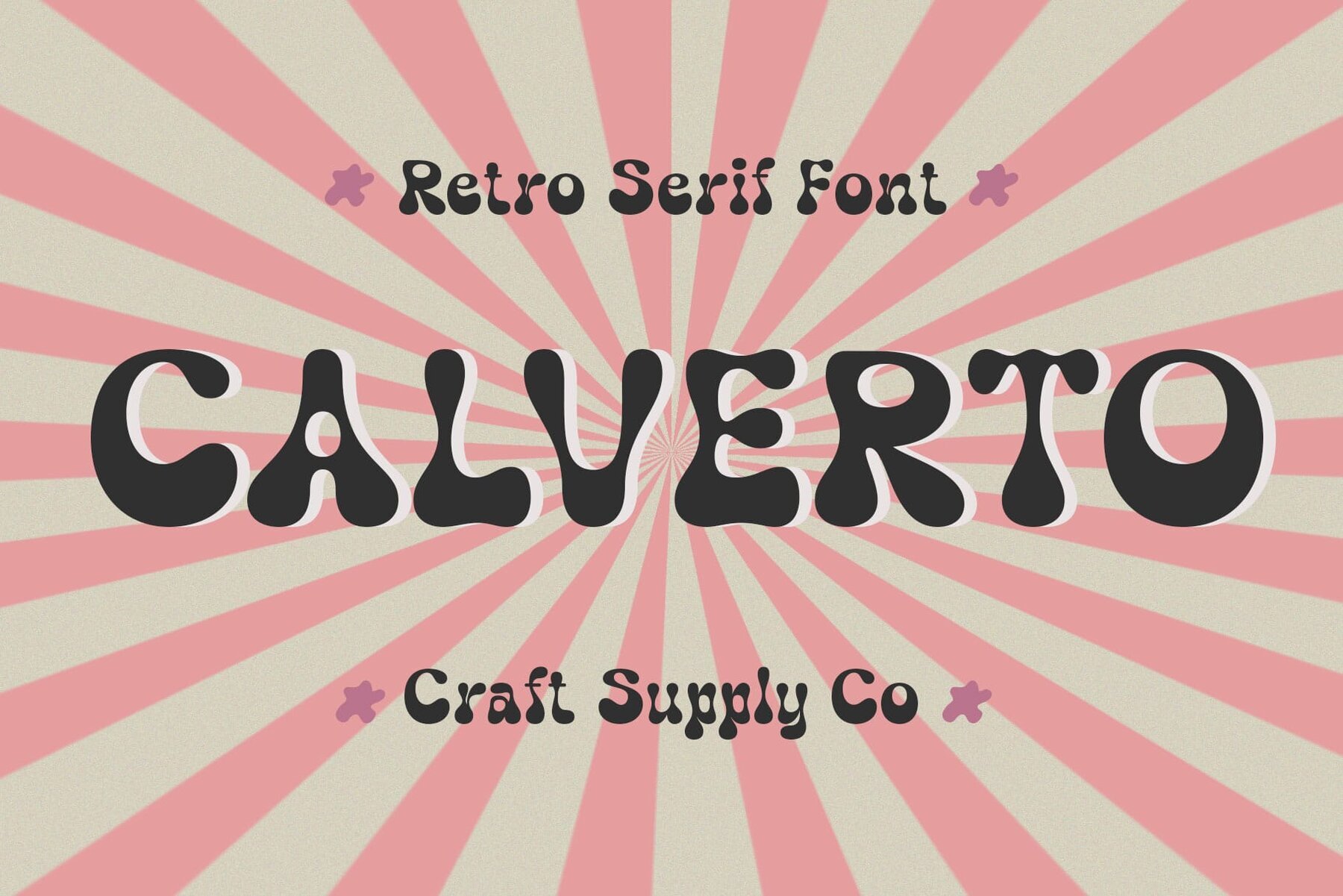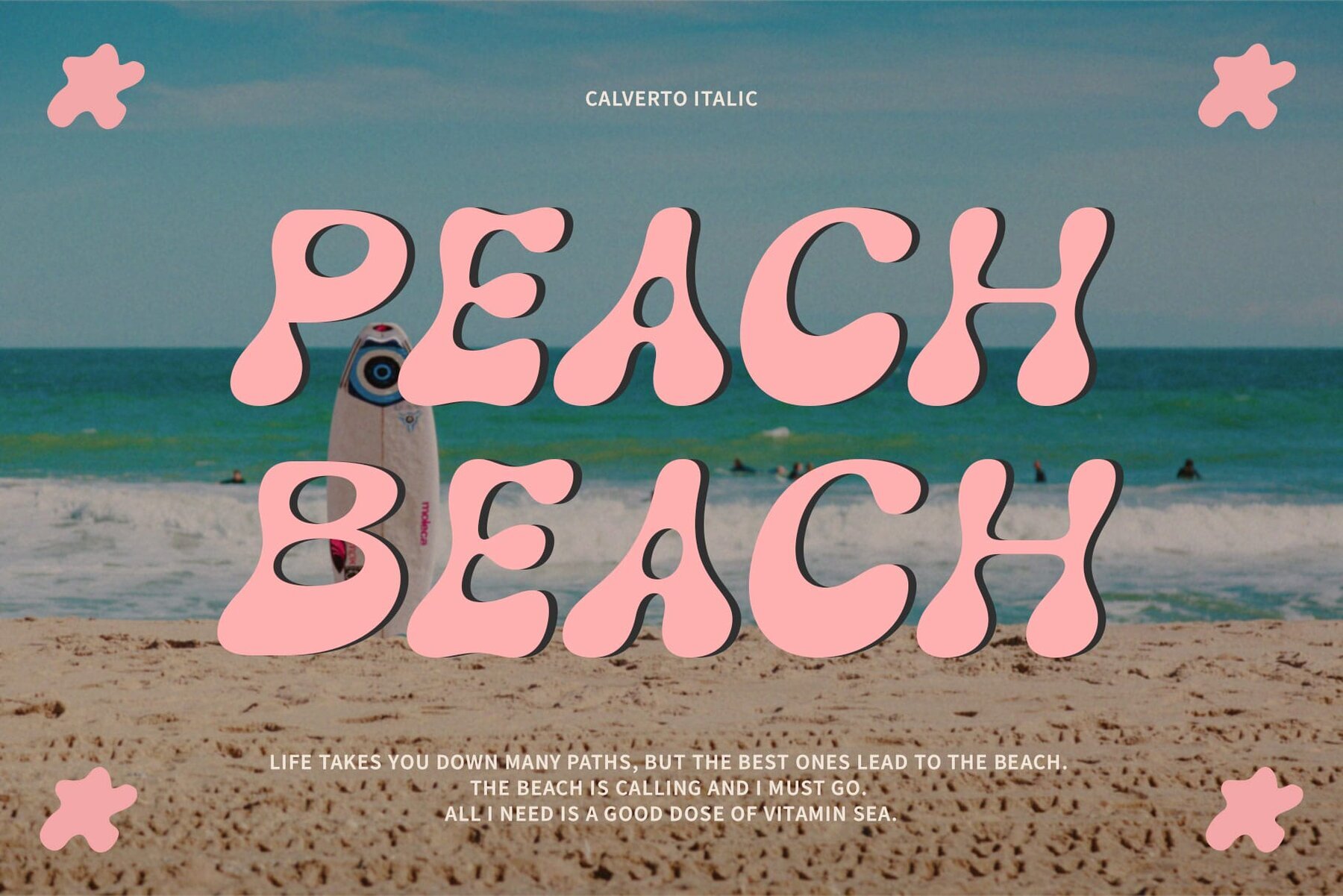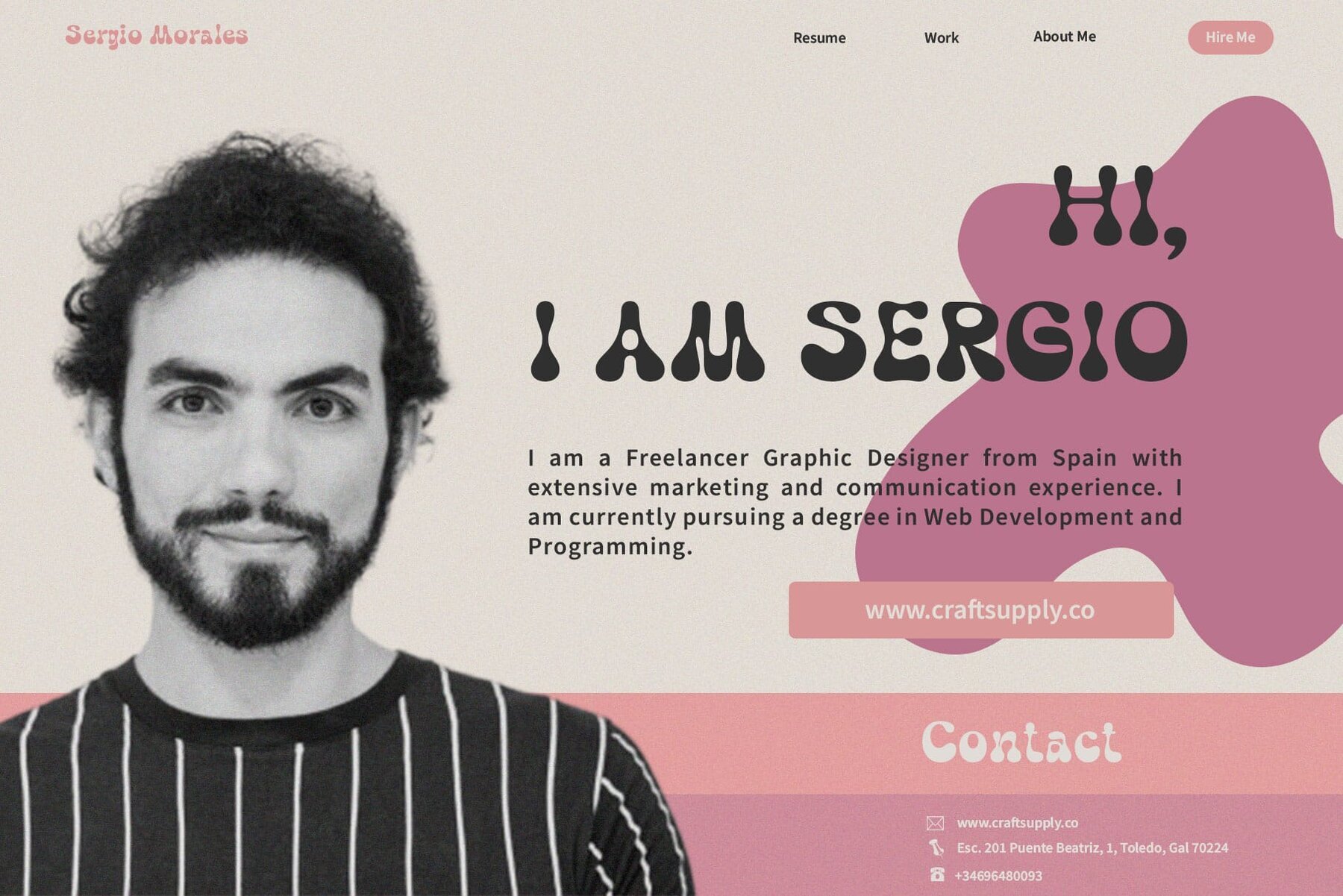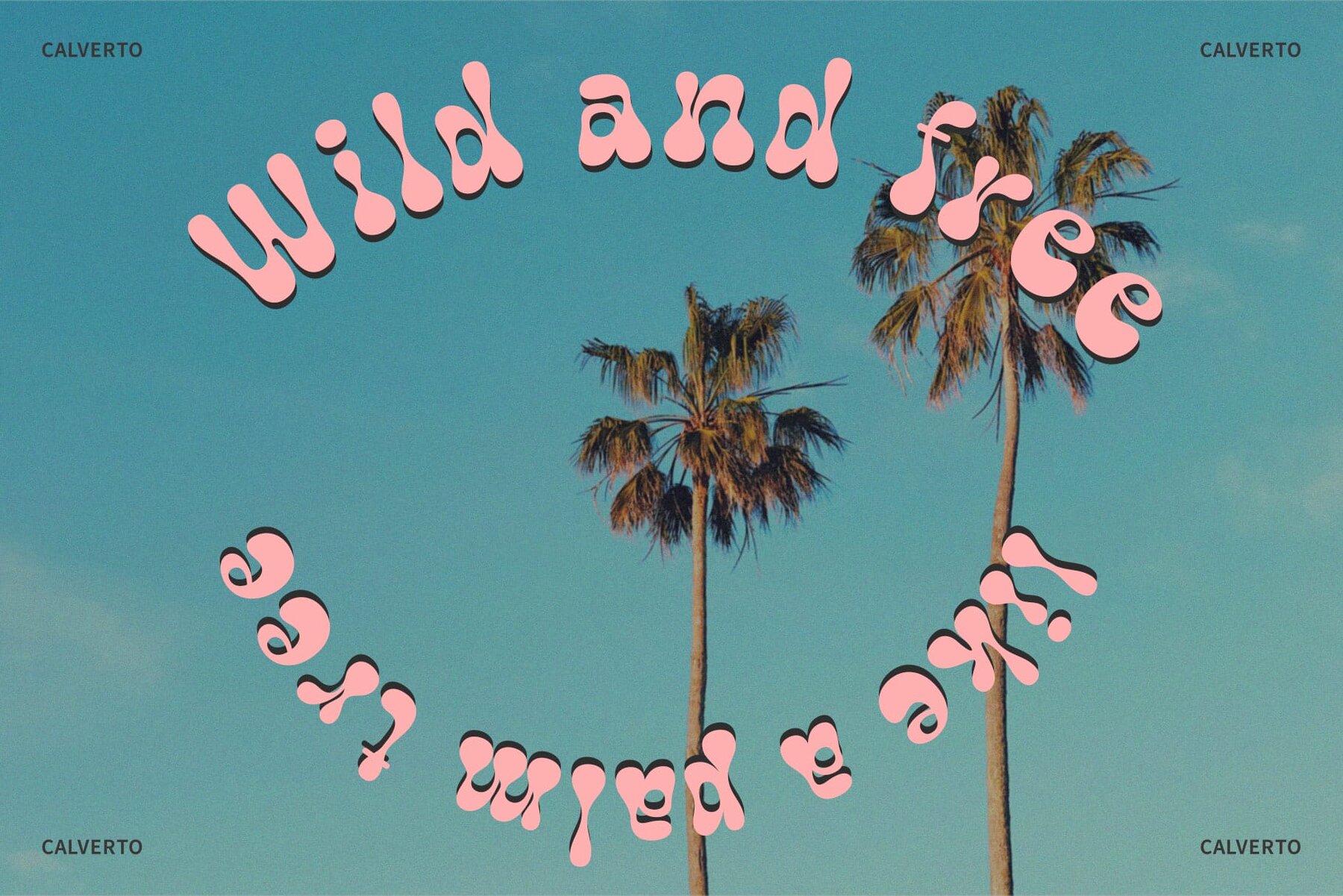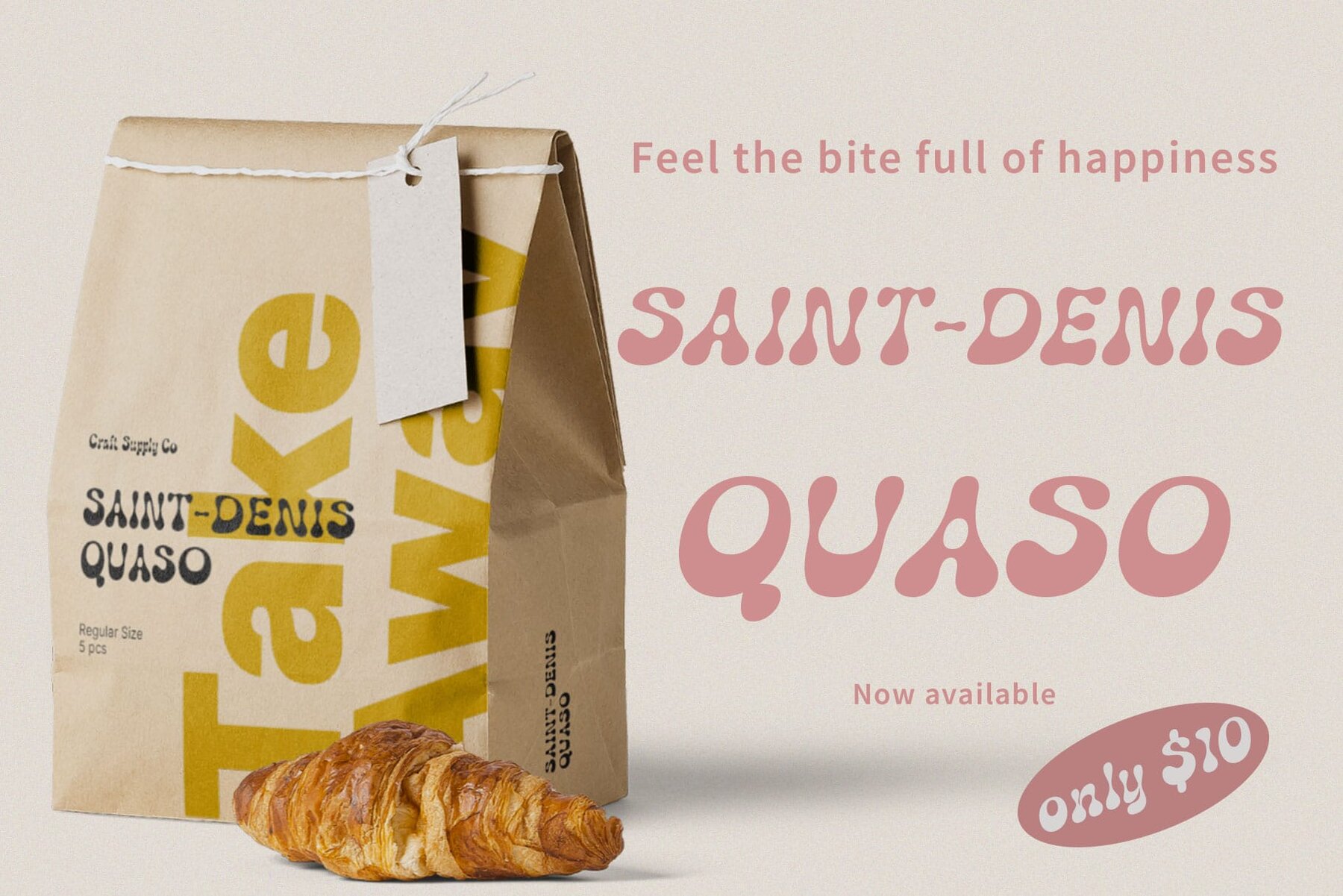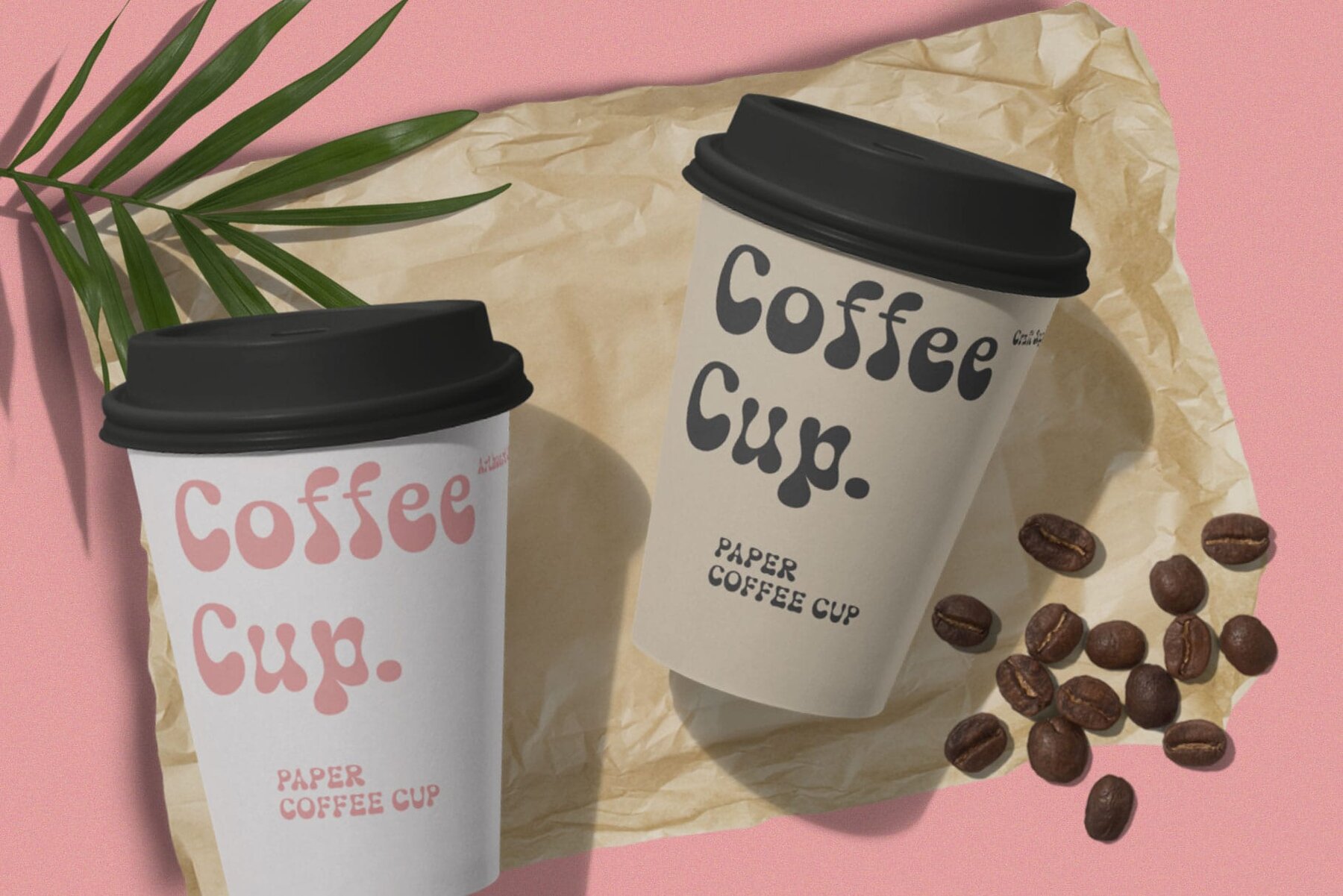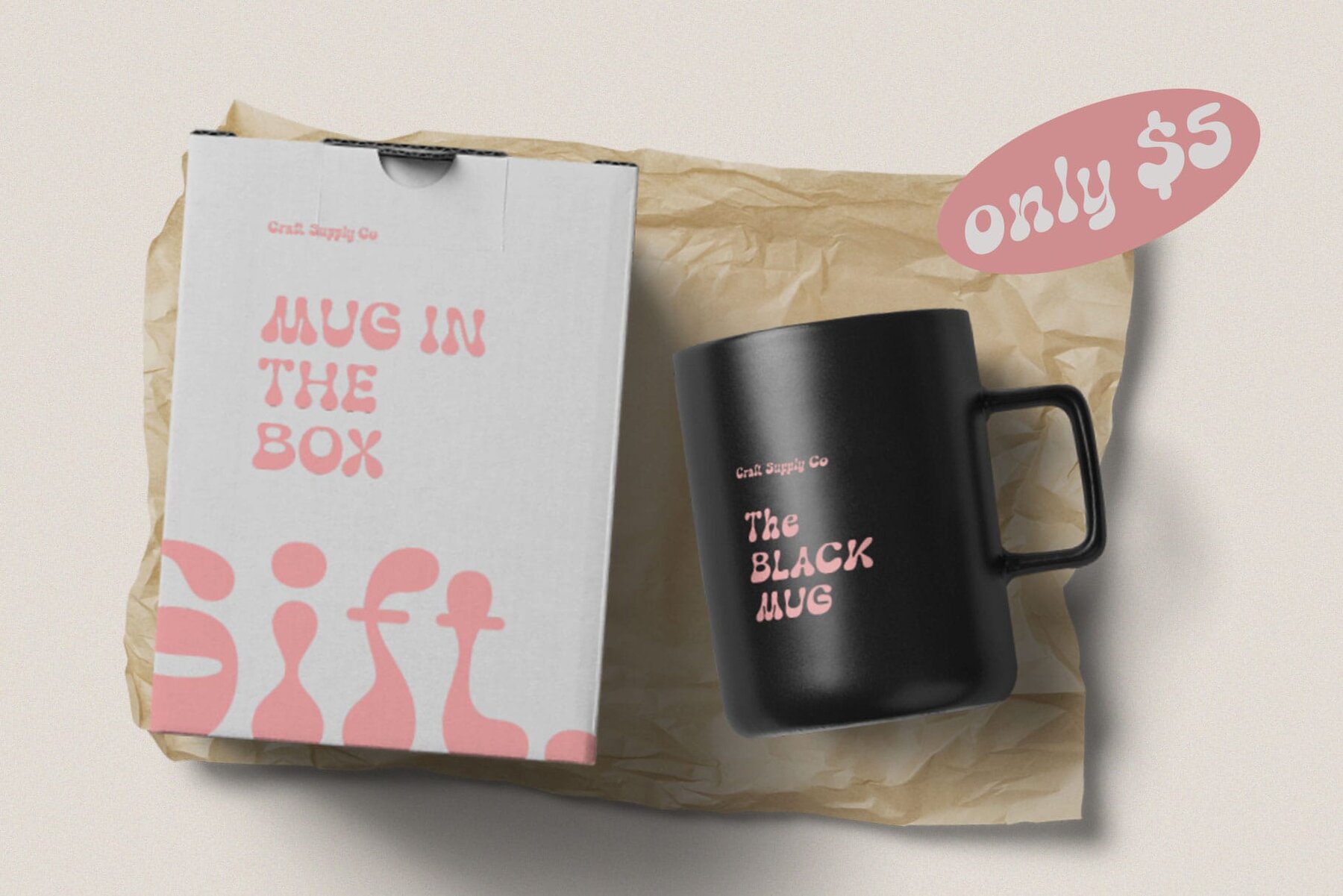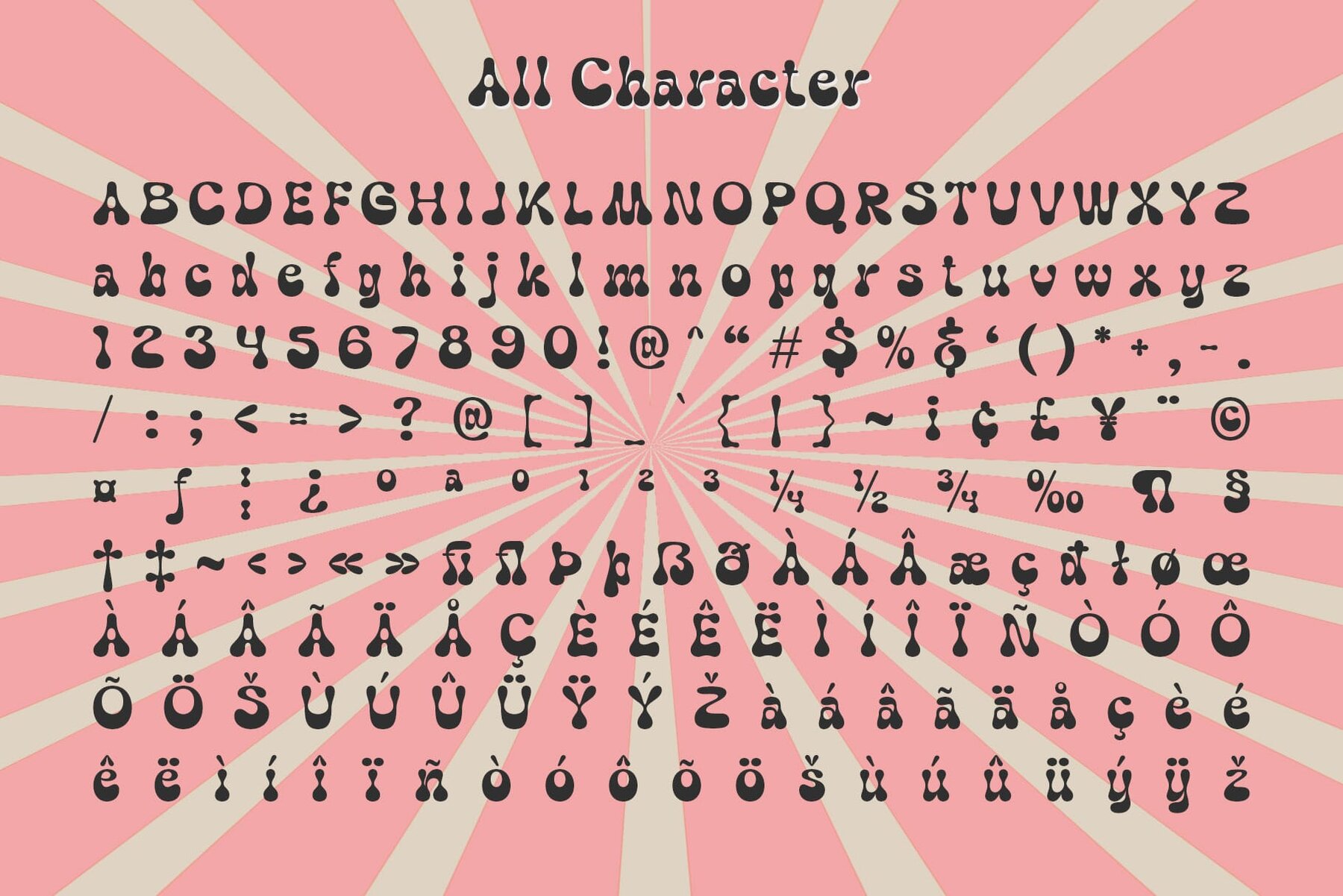
Calverto Font
Calverto is a display font that beautifully captures the nostalgic essence of the '90s. Its groovy bubble design, characterized by rounded edges, brings a soft and retro vibe that resonates with the carefree spirit of the era. Calverto transports users back to a colorful and energetic era, making it perfect for retro-themed designs that require a playful and carefree spirit. No specialized software is needed to use this typeface. If you have any inquiries or need assistance, please feel free to contact us. We appreciate your support in enhancing your creative projects!Calverto: Retro Charm with a Groovy Bubble Style
Design and Appeal
Blast from the Past